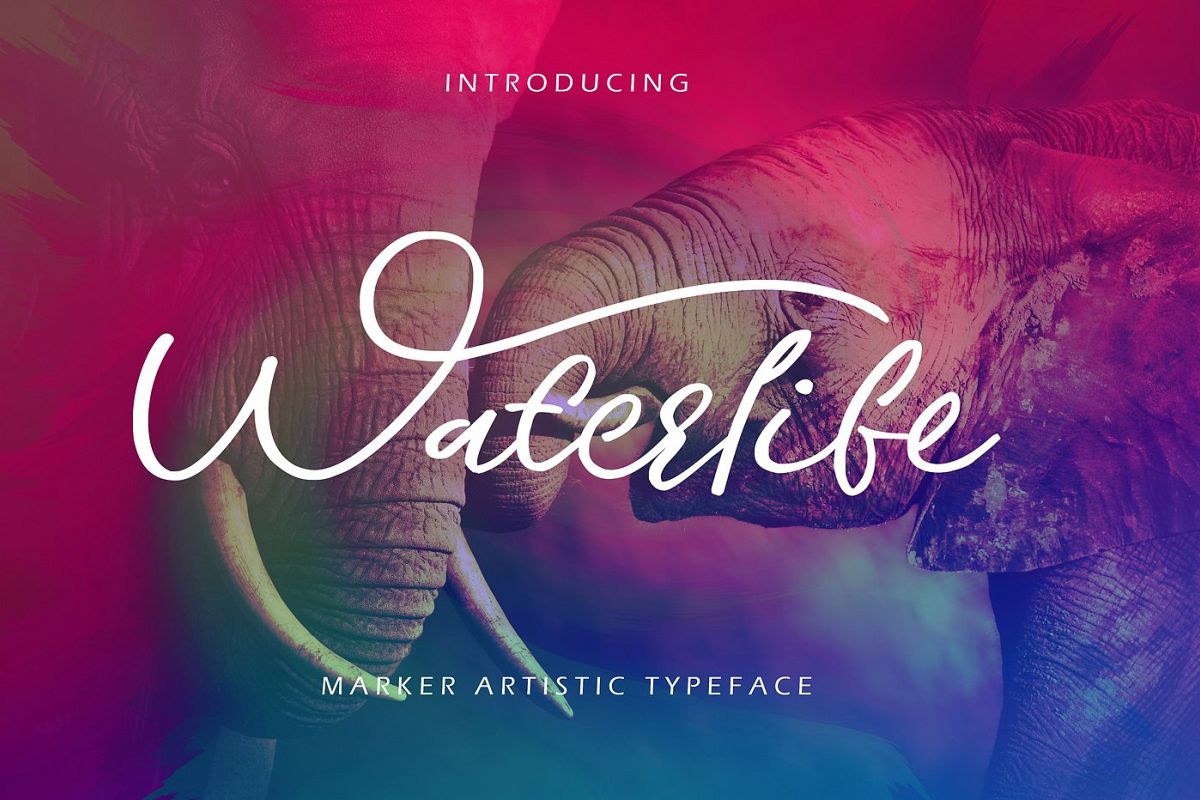
Waterlife Script Font
Let me introduce you the font Waterlife. It flows like a signature while you type it. It really shows the art of hand-work. It is very legible even though its nature looks like it has extreme lines. It is really unique in this regard. Awesome! Isn't it ? ???? Don't Remember only 1 week 10 dollars.GREAT FOR ;
• Characteristic company logos
• Blog pages
• Logo of brands
• Projects you need to utilize a premium font.
• The projects that require a font including lots of alternates.
• Numbers and Symbols
• Alternate Characters
• Swashes